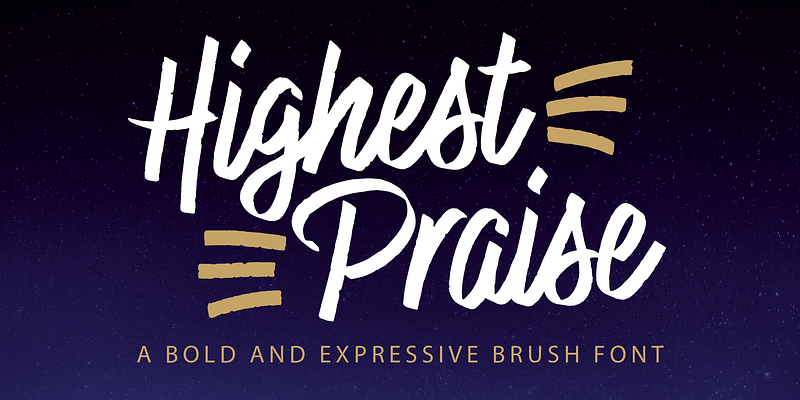
Highest Praise Font Free Download is a bold and expressive script typeface designed to make a statement. With its sweeping curves, elegant flourishes, and dramatic letterforms, this font is perfect for projects that require a sense of energy, celebration, and sophistication. Ideal for branding, event invitations, logos, social media graphics, and artistic designs.
Highest Praise Font Free Download captures the essence of hand-lettered calligraphy, offering both artistic flair and readability. Whether you're designing for weddings, award shows, or creating promotional materials for a celebratory event, this font adds a personal, high-impact touch to your typography.
It pairs beautifully with simple sans-serifs or clean serif fonts for contrast and balance, ensuring your designs have both visual interest and clarity.